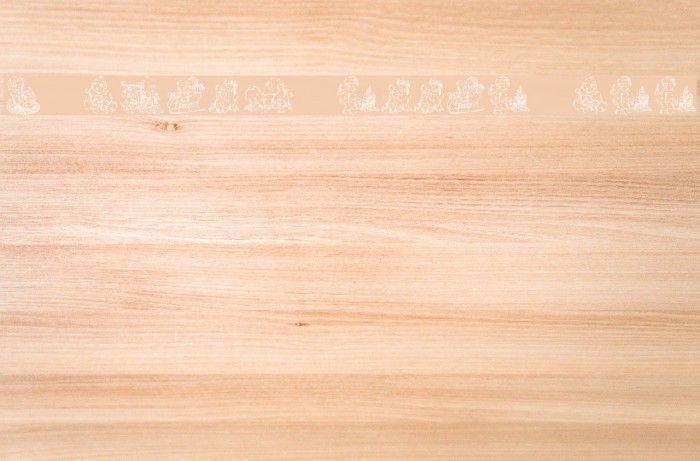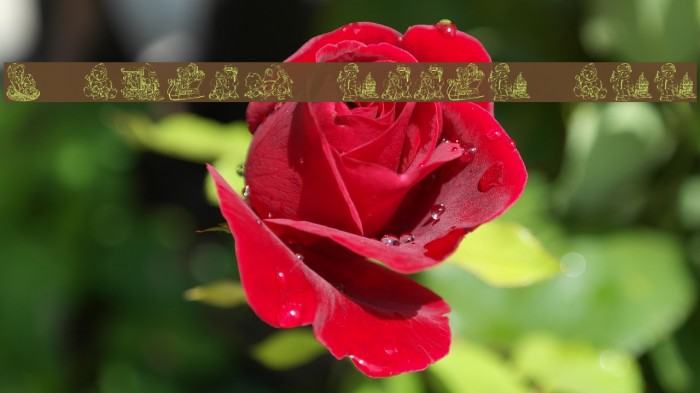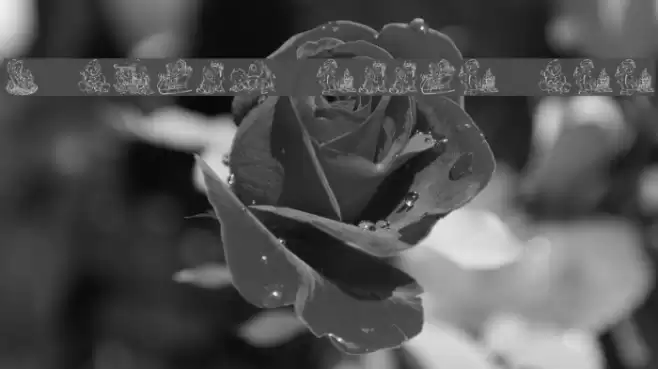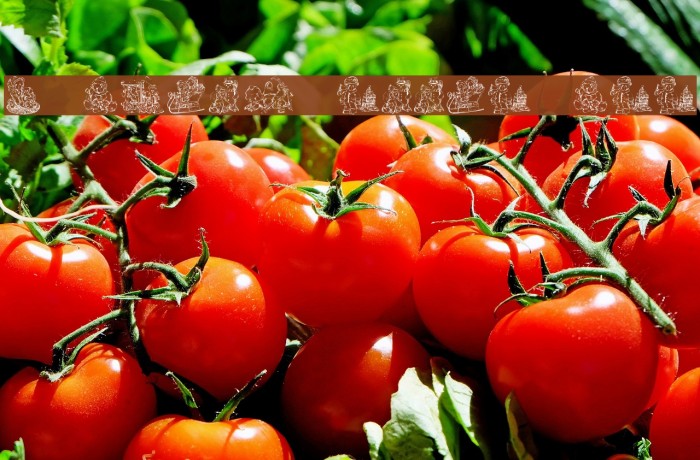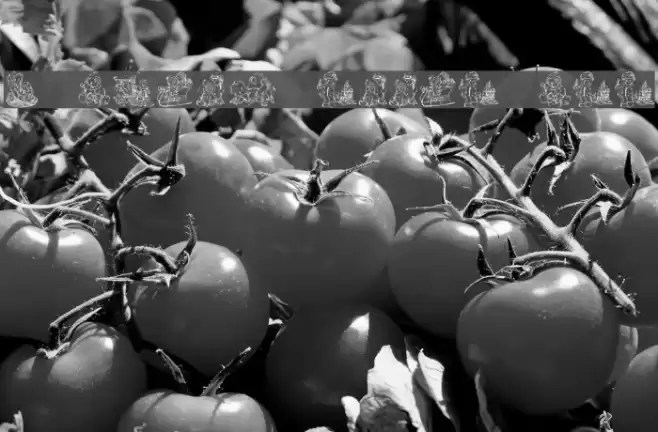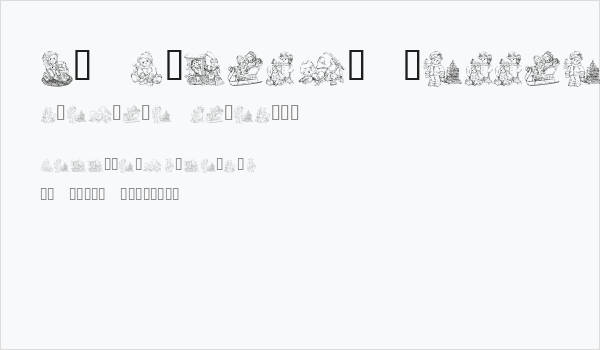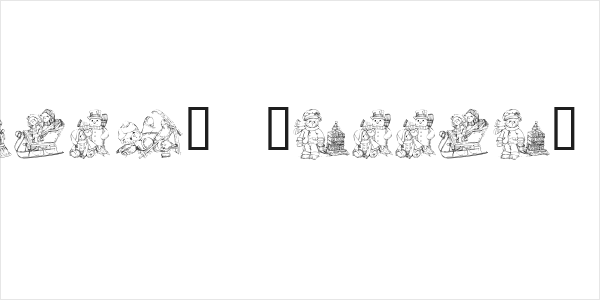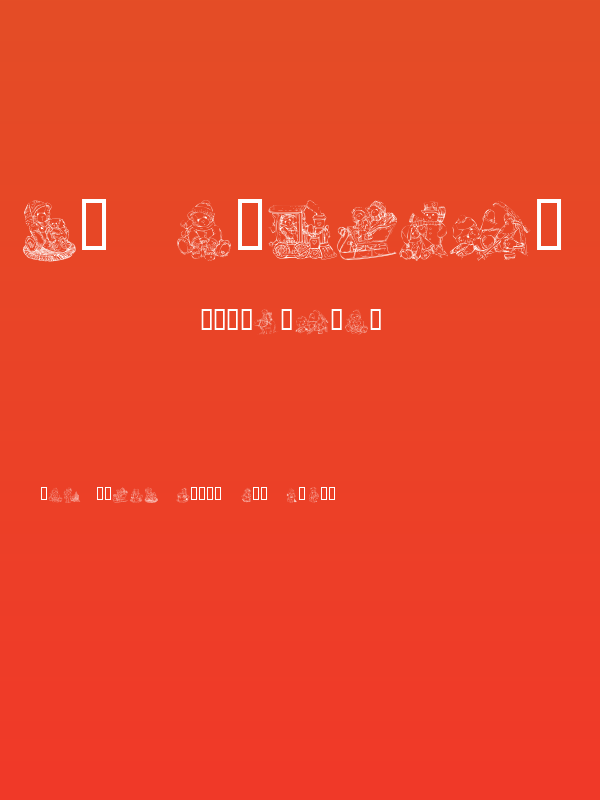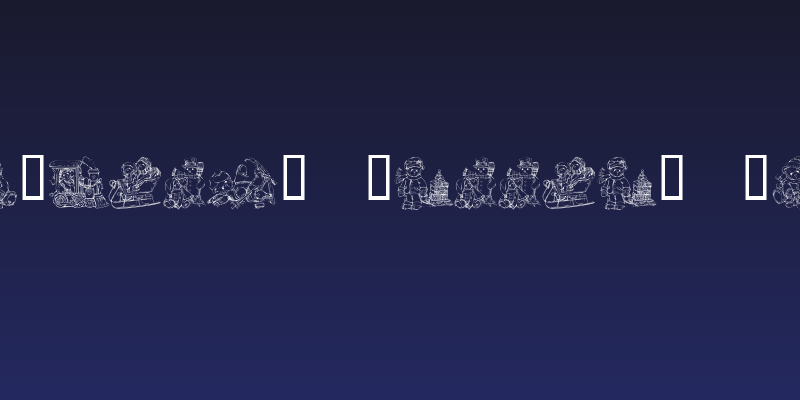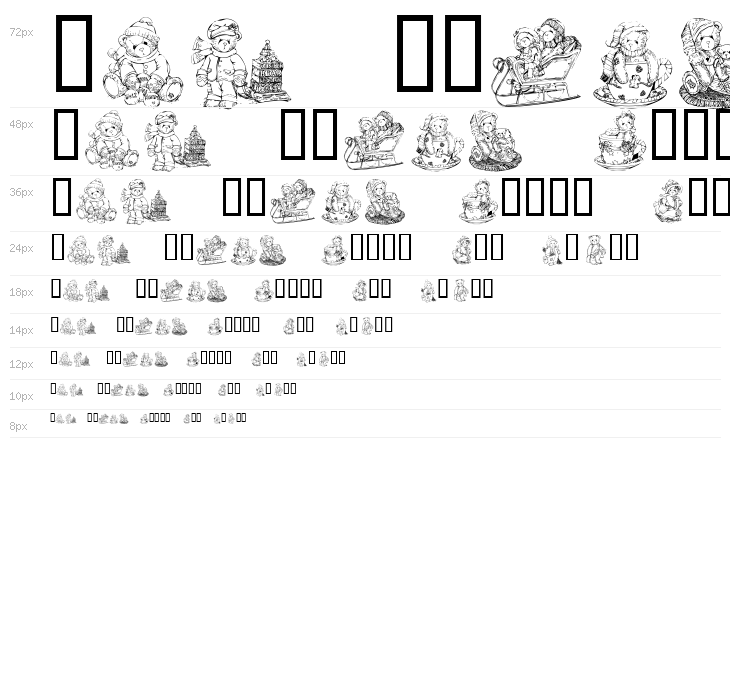
KR Holiday Teddies Three Font
KR Holiday Teddies Three Description
This is a decorative font featuring charming teddy bear illustrations, each representing a different character or scene. The font captures a playful and whimsical essence, perfect for holiday-themed projects. Each character is intricately designed, showcasing a variety of activities and expressions, making it visually engaging and unique. The detailed artwork within each letterform adds a layer of creativity and fun, ideal for projects that aim to convey warmth and joy.
Overall StyleWhimsical and Playful
Use CaseDecorative purposes, especially suitable for festive and playful designs.
Proposed ProjectsIdeal for holiday cards, children's books, festive invitations, and playful branding materials.